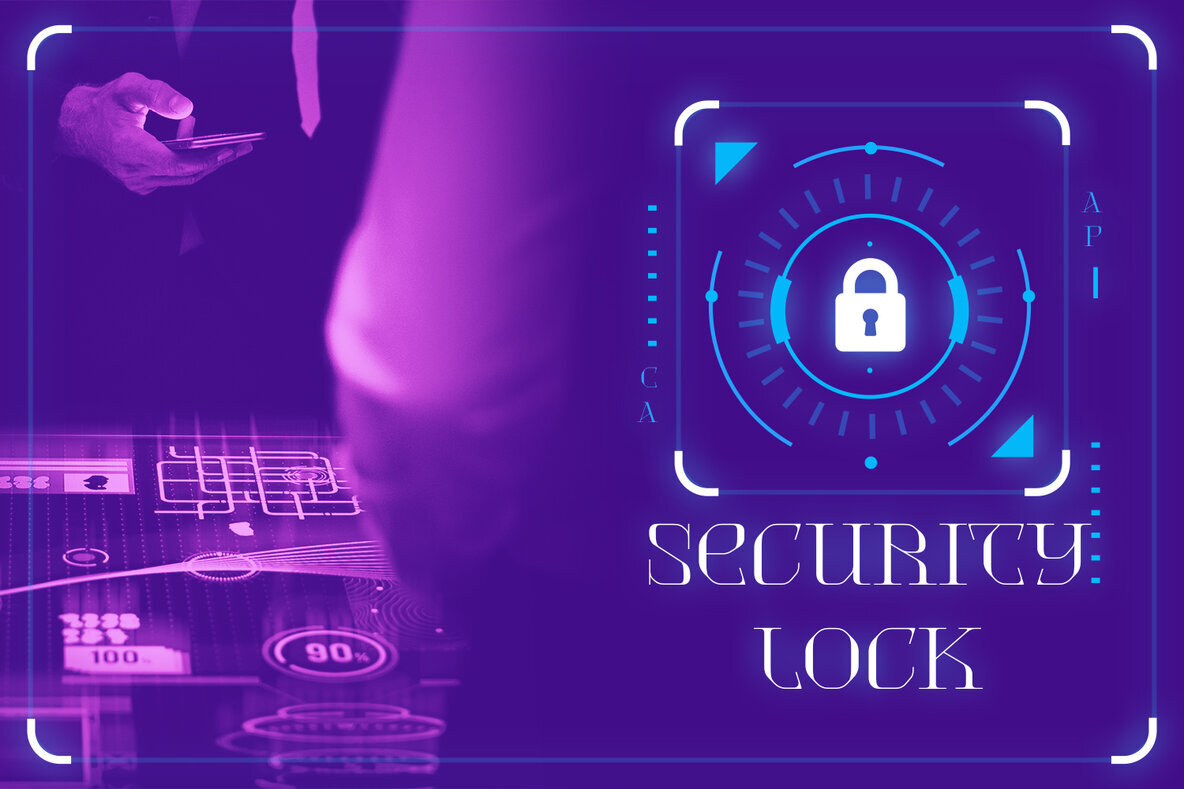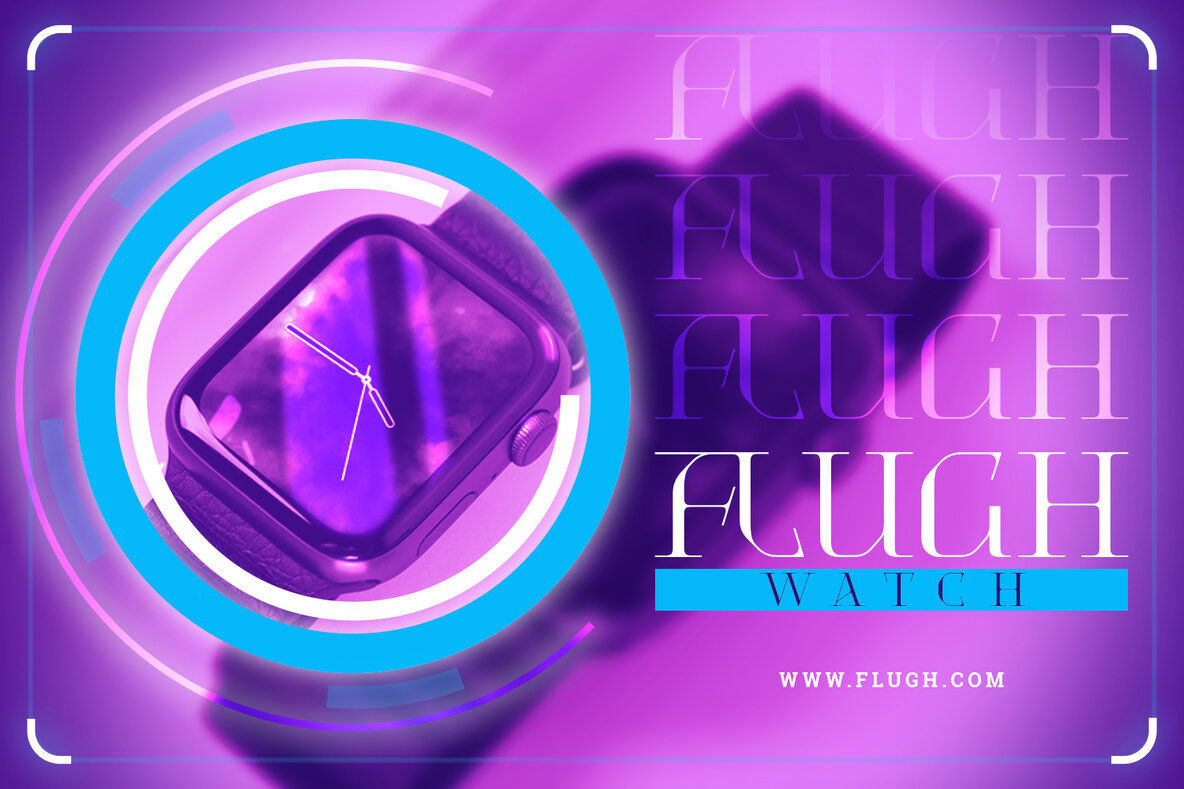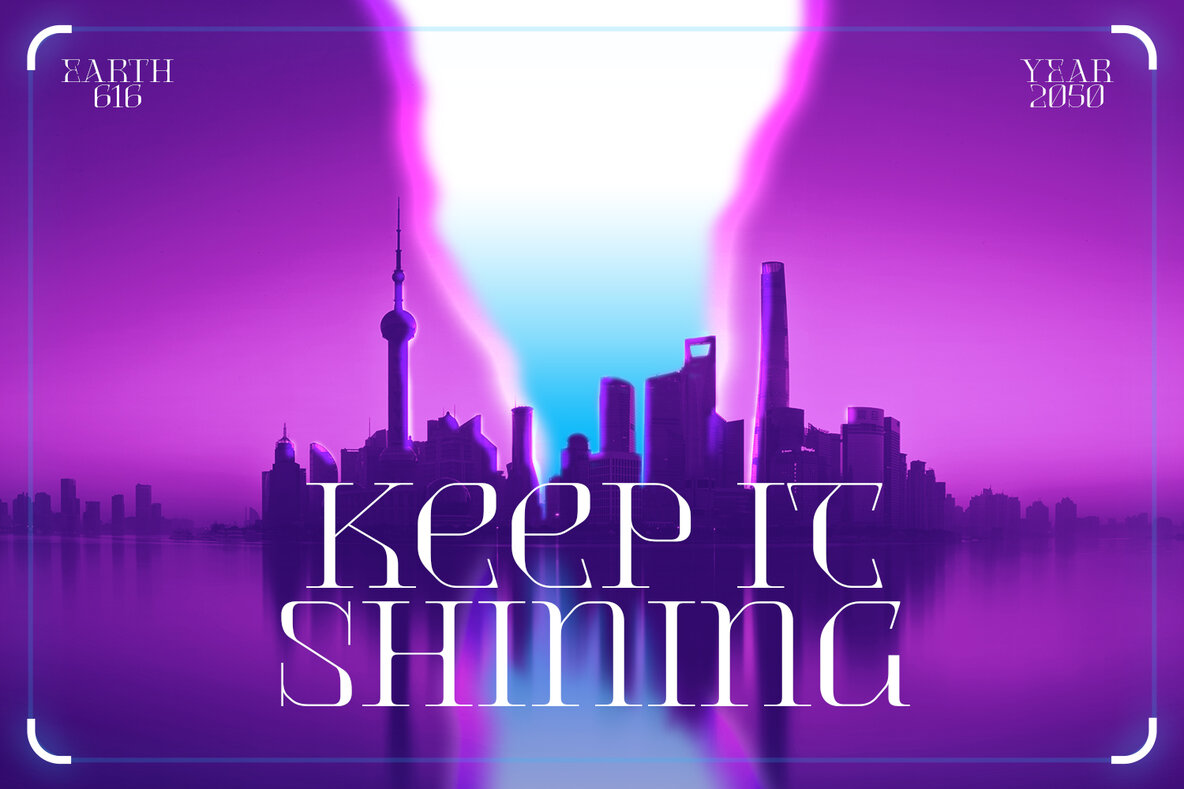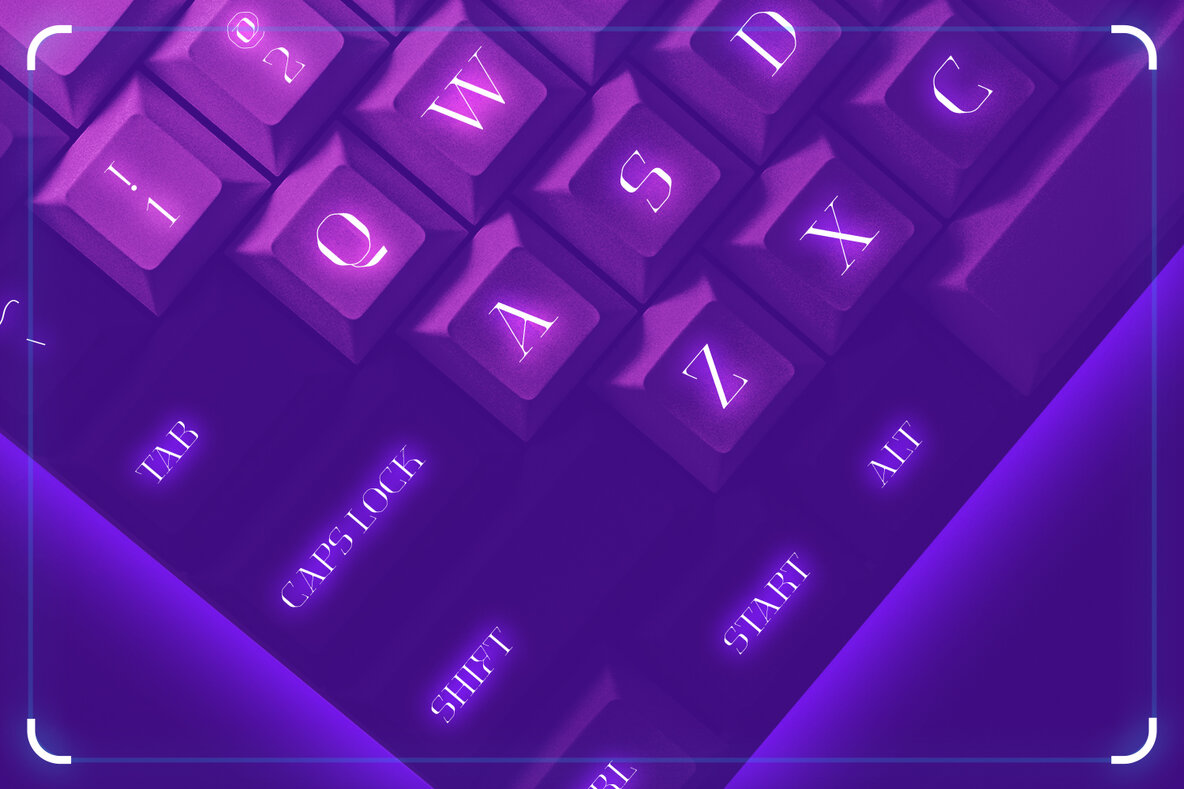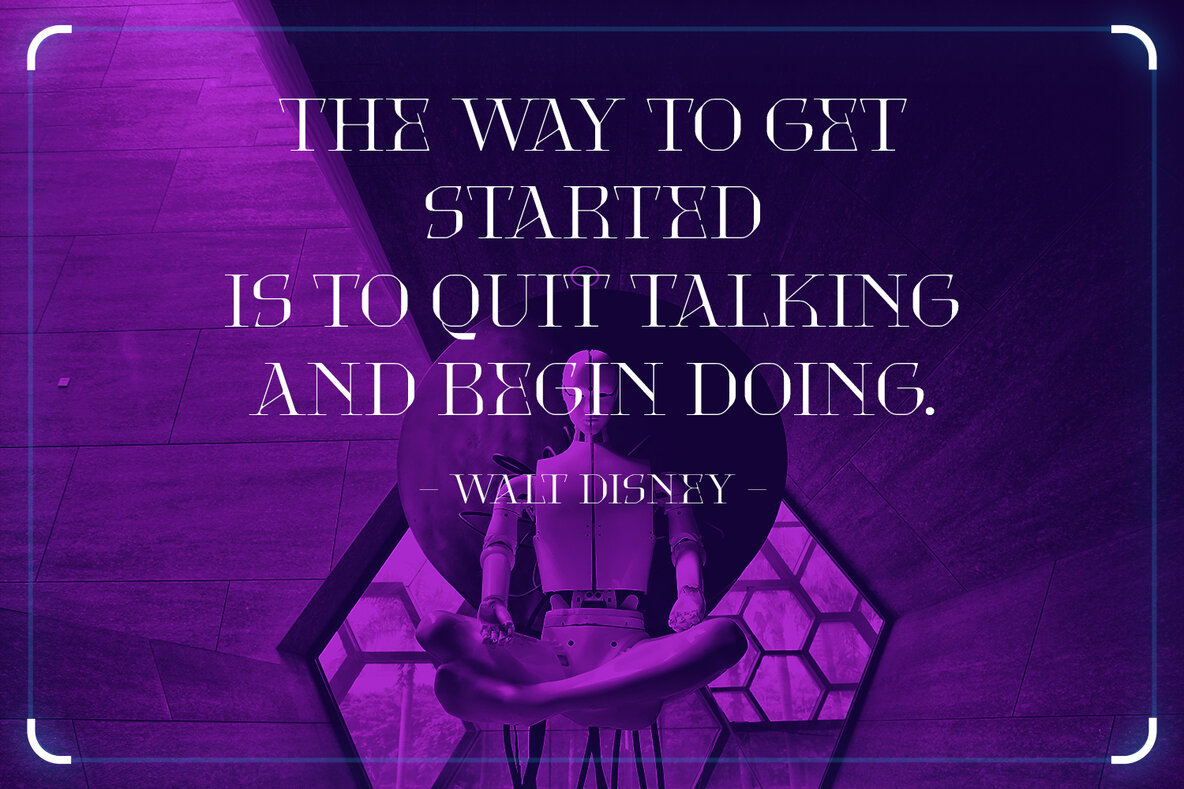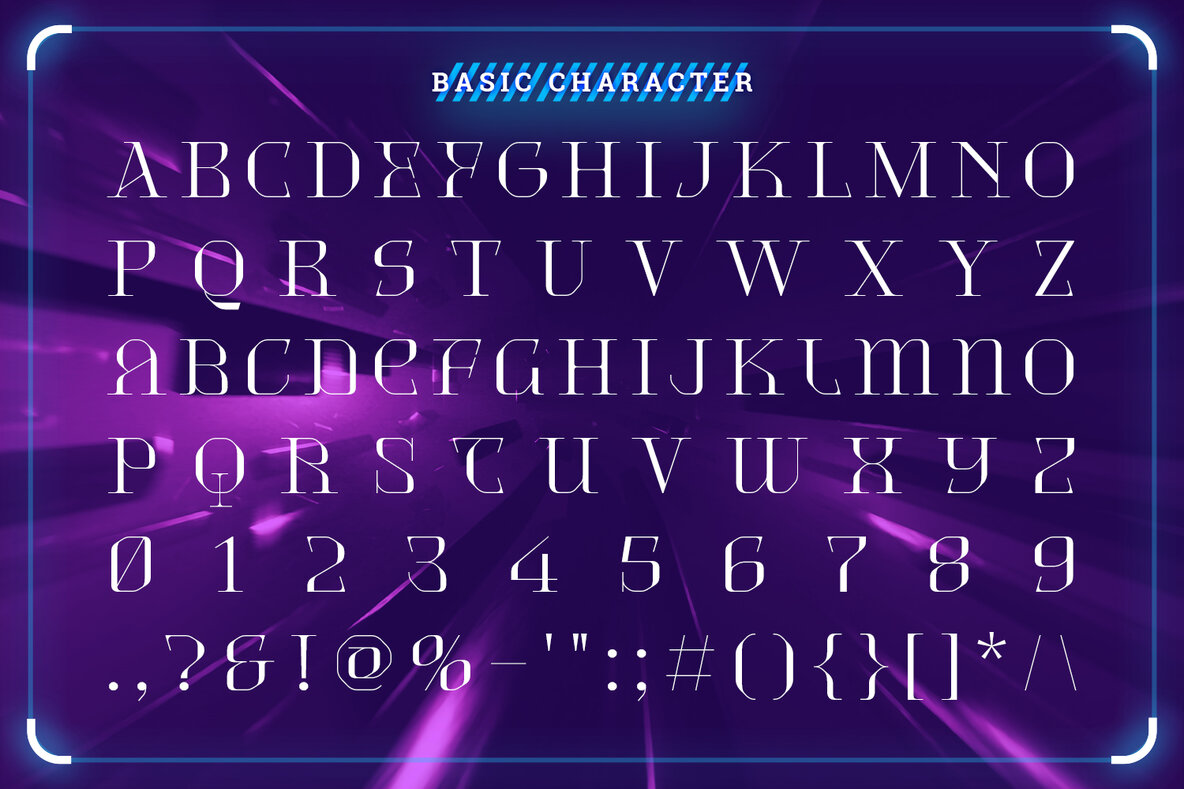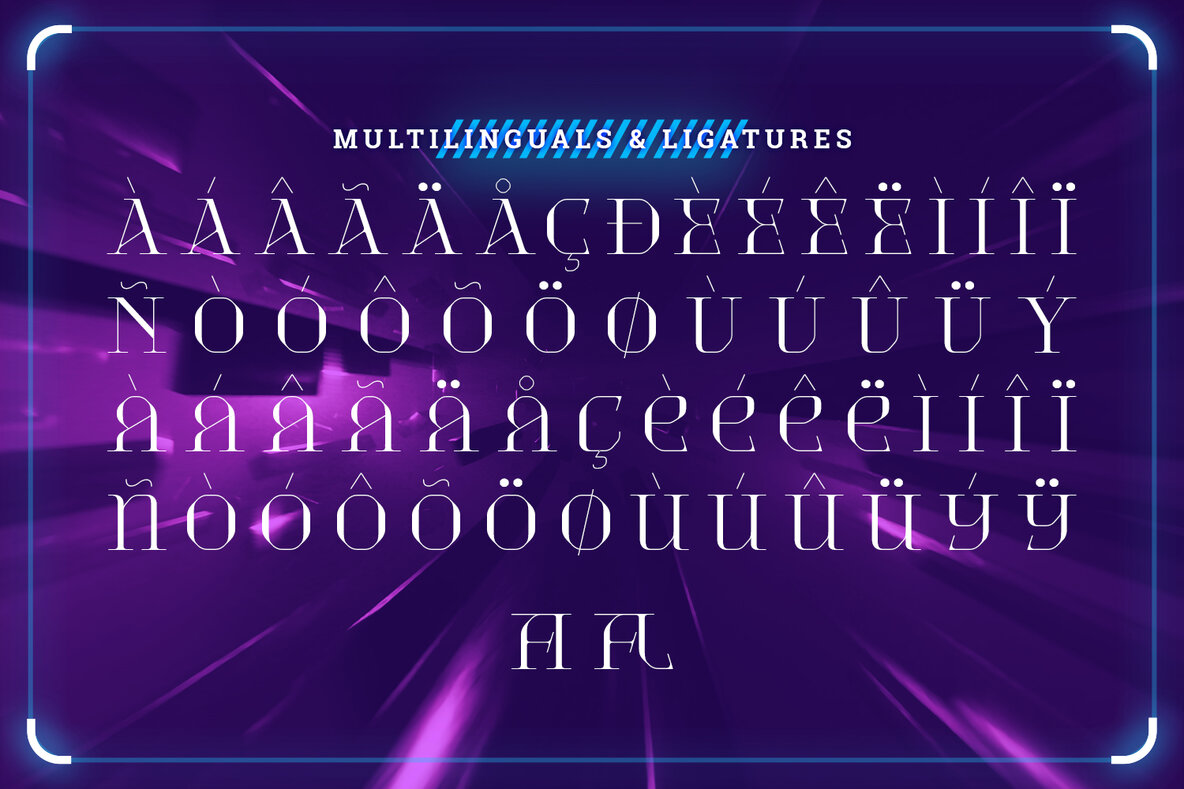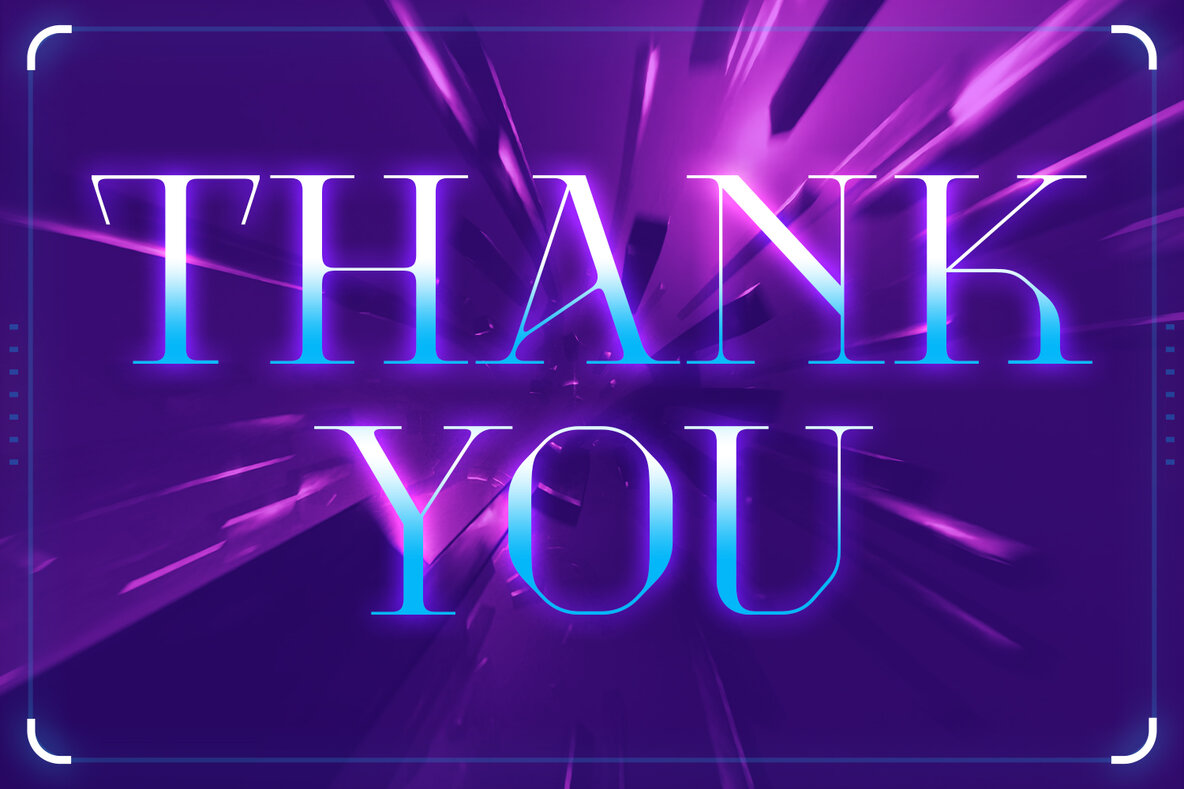
Quicknity Font
QUICKNITY Regular
Quicknity captures attention with its angular serif design, infusing a modern sensibility into every letter. Consistent angles define each glyph, while the uniform size of upper and lowercase letters offers creative flexibility for various design projects. Ideal for prominent text, Quicknity excels in headlines and concise textual elements. Quicknity is seamlessly compatible with design staples like Adobe Illustrator, Photoshop, and InDesign, as well as Microsoft Word. Its multilingual support and PUA encoding ensure wide accessibility across platforms, making it a versatile choice for designers seeking to enhance their visual narratives.Quicknity: Angular Serif with Future Nuances